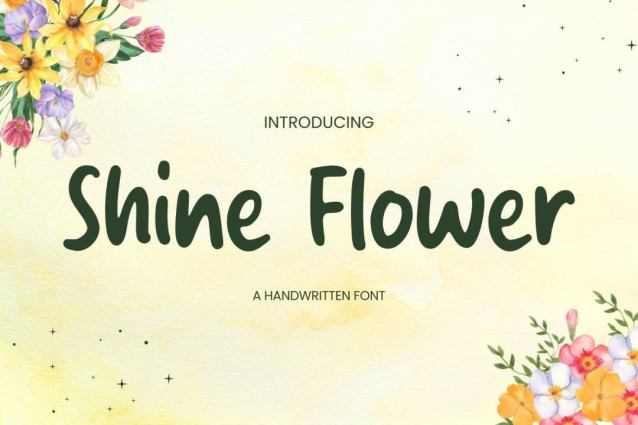
Shine Flower Font
Shine Flower Font is a simple and friendly handwritten font. Its natural and unique style makes it incredibly fitting to a large pool of designs. The only limit is your imagination!